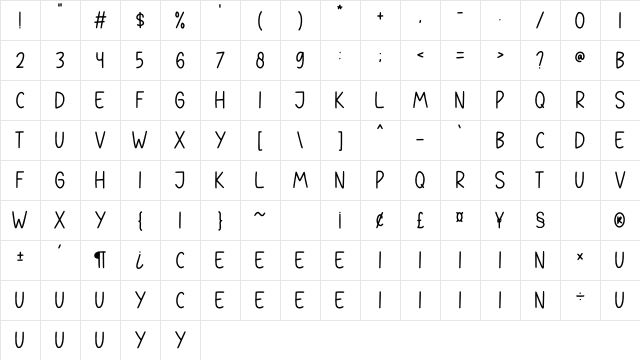
Little Regular
Foundry: Graphix Line Studio
Designer: Aldi Raya Pradipta
Design Context for Little
Little is a composed and adaptable typeface that performs quietly and consistently across a wide range of design contexts.